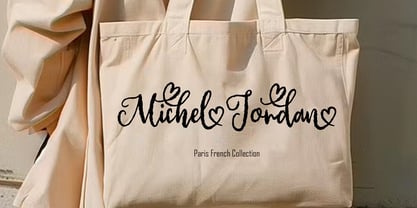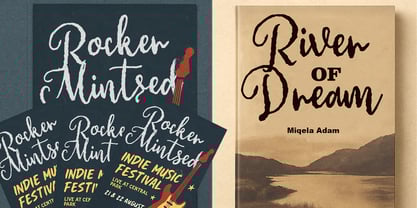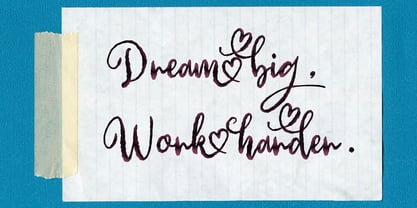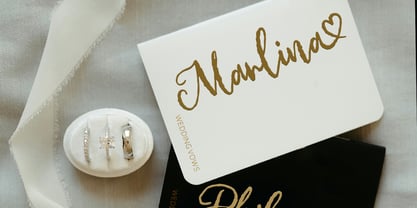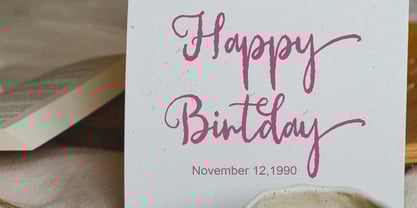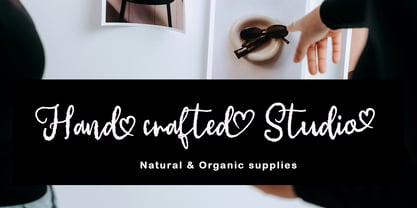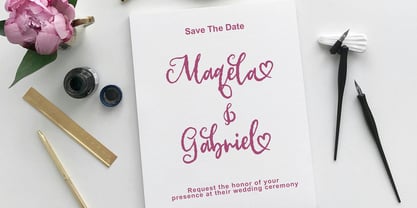
Rocker mintsed
by Sulthan Studio
The Rocker mintsed Font Family was designed by Nasrullah and published by Sulthan Studio. Rocker mintsed contains 1 styles. More about this family
Rocker Mintsed Natural Roung In Script is a modern brush script font that exudes authenticity and hand-crafted charm. Designed to capture the natural flow of hand lettering, this font combines bold strokes with smooth curves, making it perfect for creative projects that need a touch Natural. With its organic texture and casual elegance, Rocker Mintsed Natural Roung In Script is ideal for logos, branding, packaging, social media posts, and handwritten quotes. Its dynamic and fluid style brings life and personality to any design, ensuring your message stands out with confidence and character. Perfect for: Rocker Mintsed Natural Roung In Script is perfect for a wide range of creative projects, including: Branding and logo design Product packaging Wedding invitations and greeting cards Social media graphics Handwritten quotes and posters Merchandise and apparel Blog headers and website titles Whether you're aiming for a natural, artistic look or a bold, expressive statement, this font adds a unique, handcrafted feel to your design.